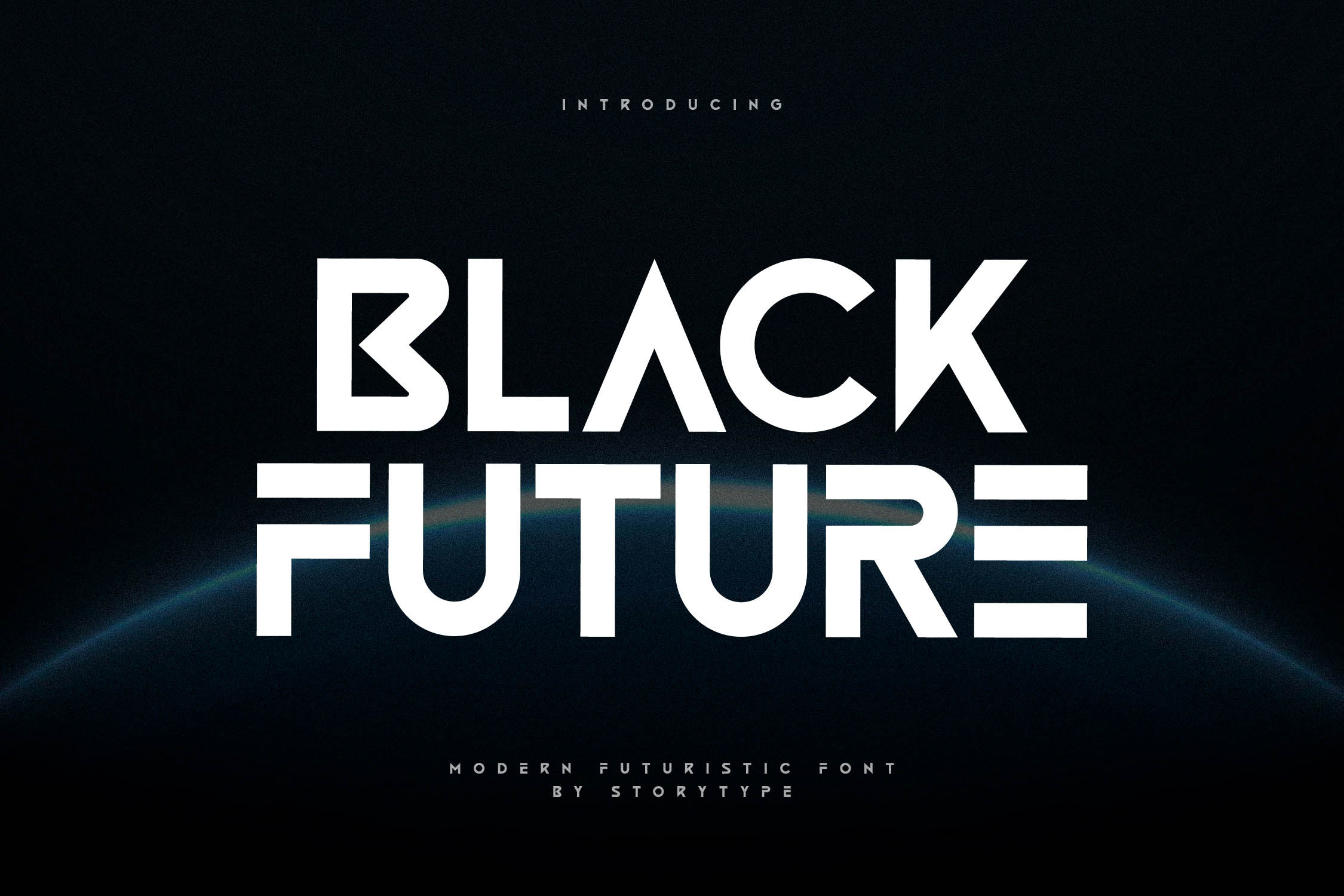
Black Future Modern Futuristic Font
Proudly present Black Future Typeface , created by Storytype, A serif modern and classic typeface that has own unique style & modern look. This typeface is perfect for an elegant & luxury logo, book or movie title design, fashion brand, magazine, clothes, lettering, quotes, and so much more.